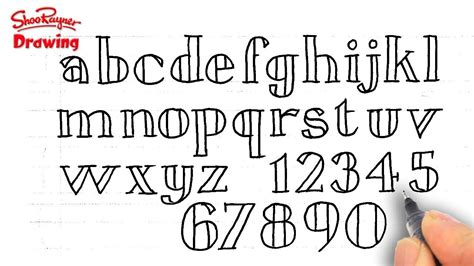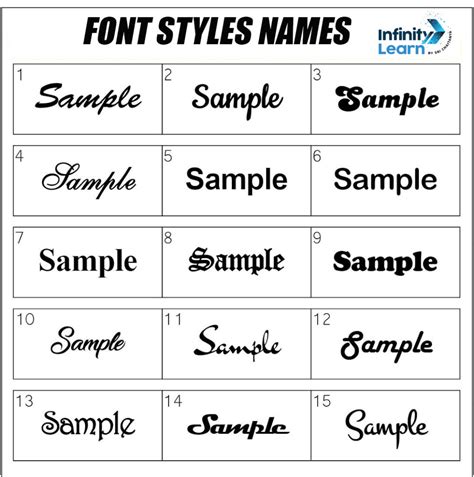
Alphabet Fonts: Lowercase & Uppercase Styles
Readers, have you ever stopped to think about the different styles of letters we use? We see them everywhere, from billboards and book covers to websites and social media. But how much do we really know about the **alphabet fonts** that shape our visual world?
Whether you're a designer, a writer, or simply someone who appreciates beautiful typography, understanding the nuances of **alphabet fonts** can significantly enhance your creative process.
As a writer and researcher with a deep interest in **alphabet fonts**, I've dedicated countless hours to analyzing their intricate details and exploring the vast world of typeface styles. In this post, we'll delve into the fascinating realm of **alphabet fonts**, uncovering the secrets behind their lowercase and uppercase forms and the design principles that guide their creation.
Understanding the Basics of Alphabet Fonts
Before we embark on our journey through the various **alphabet fonts** styles, let's establish a foundation by understanding the core concepts that define them.
What Are Alphabet Fonts?
In a nutshell, **alphabet fonts** are the visual representations of letters, numbers, and symbols. They are the building blocks of written communication, shaping the way we read, interpret, and understand information.
The term "font" itself refers to a specific style of typeface, often defined by its unique character shapes, weight, and overall aesthetic. Think of it as a complete set of letters, numbers, and symbols that share a common visual language.
Exploring the World of Typefaces
The world of typefaces is vast and diverse, with numerous classifications based on their historical origins, stylistic characteristics, and intended applications.
Some common typeface classifications include:
- Serif Fonts: Characterized by small decorative lines (serifs) at the ends of strokes, often associated with tradition and readability.
- Sans-Serif Fonts: Lacking serifs, these fonts are generally considered cleaner, more modern, and easier to read on digital screens.
- Script Fonts: Inspired by handwritten calligraphy, these fonts often feature flowing, cursive-like styles.
- Decorative Fonts: As the name suggests, these fonts are designed for visual impact and often employ unique, elaborate letterforms.
Understanding these basic classifications helps us navigate the world of **alphabet fonts** and appreciate the diverse range of styles available.
Exploring the Nuances of Lowercase and Uppercase Styles
Within each typeface, variations exist between lowercase and uppercase letters, each with its own unique aesthetic and design principles. Let's delve deeper into the intricacies of these letterforms.
The Graceful Lowercase: A Visual Symphony
Lowercase letters often exhibit a more fluid and organic character, with delicate curves and subtle details that contribute to their overall elegance. They are the workhorses of written communication, contributing to the rhythm and flow of text.
Some noteworthy features of lowercase letters include:
- Ascent: The height of lowercase letters above the baseline.
- Descender: The portion of certain lowercase letters (like "g" and "y") that extends below the baseline.
- X-Height: The height of lowercase letters without ascenders or descenders.
These features influence the visual balance and readability of lowercase letters, making them a key component of any font's overall design.
The Bold Uppercase: A Statement of Power
In contrast to lowercase letters, uppercase letters often exude a strong presence, characterized by bolder strokes and more pronounced features. They are often used for headings, titles, and branding elements, commanding attention through their visual weight.
Some defining characteristics of uppercase letters include:
- Larger Size: Uppercase letters typically occupy a larger vertical space compared to their lowercase counterparts.
- Emphasis on Structure: Their design often prioritizes clear forms and strong geometric elements.
- Visual Hierarchy: Uppercase letters are inherently more prominent, making them suitable for emphasizing specific text elements.
The interplay between uppercase and lowercase letters contributes to the overall rhythm and visual hierarchy of text, making it visually engaging and easy to comprehend.
The Harmony of Lowercase and Uppercase: A Design Symphony
While lowercase and uppercase letters have distinct characteristics, they work together harmoniously to create a visually pleasing and functional alphabet. Their relationship is a delicate balance, with each element playing a crucial role in the overall aesthetic of the font.
The Role of Contrast
The difference in size, weight, and structural features between lowercase and uppercase letters creates a visual contrast that enhances readability and adds visual interest. This contrast helps our eyes distinguish between different words and phrases, making text easier to scan and comprehend.
Whether you're a designer, writer, or simply someone who appreciates beautiful typography, embracing the knowledge and principles we've discussed can elevate your creative process and enhance your understanding of the visual language that shapes our world. So, dive deeper into the world of **alphabet fonts** and discover the endless possibilities that await.